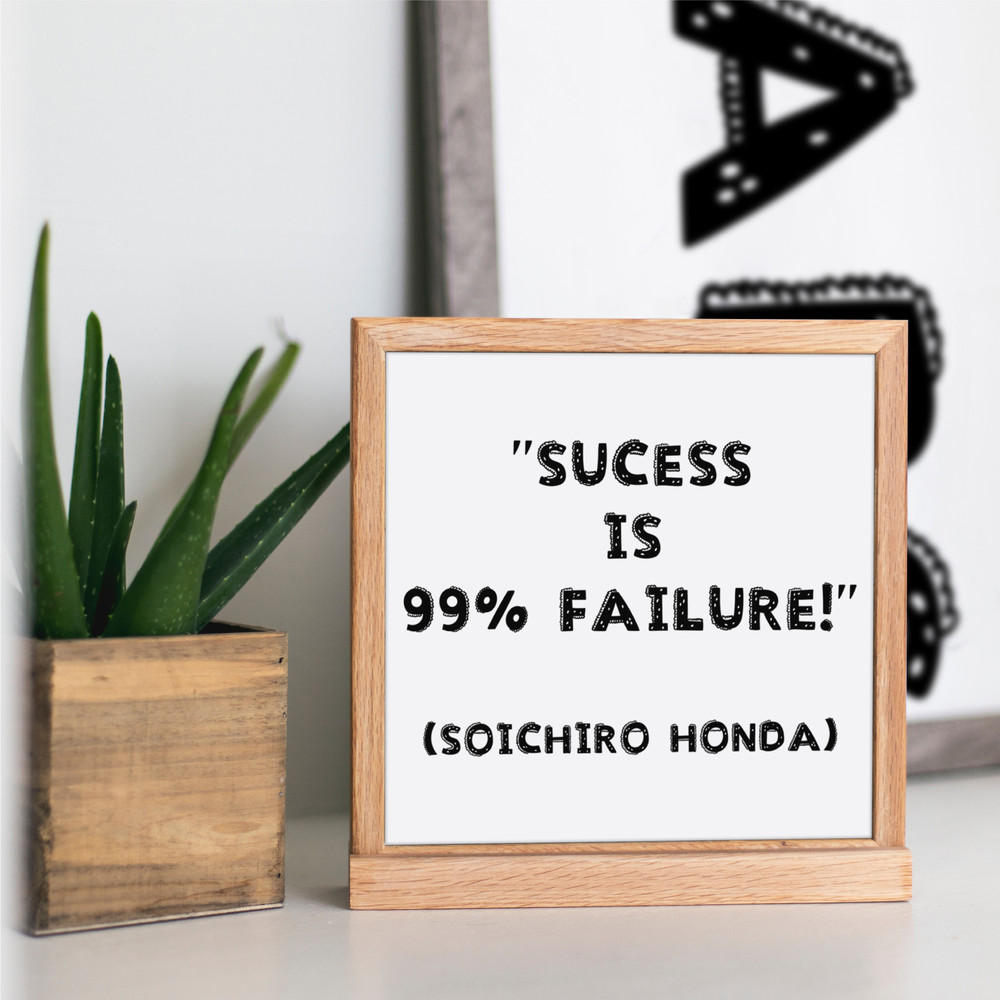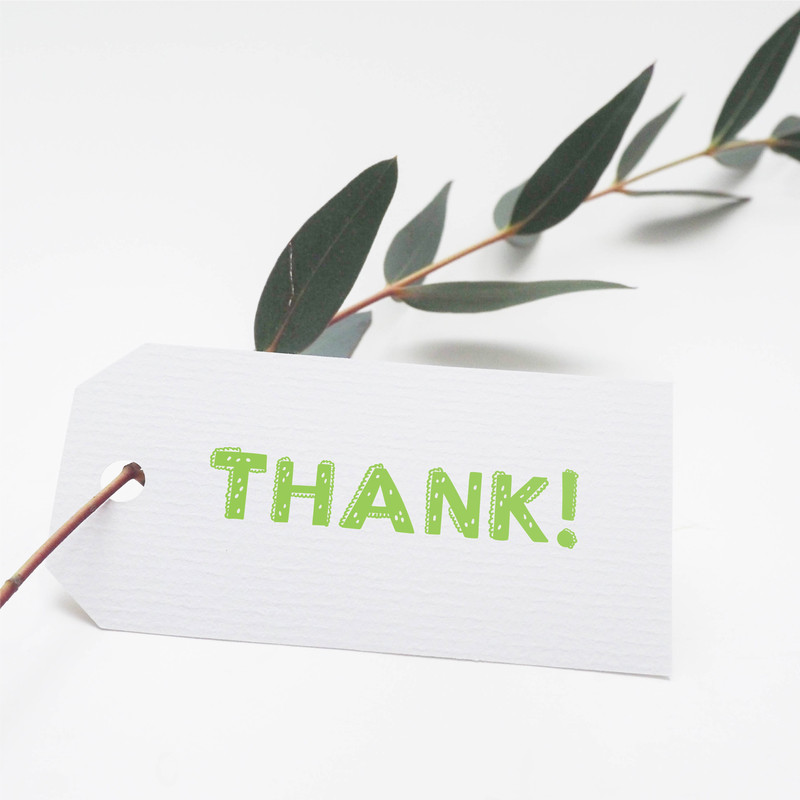
Dinosaur Cute Font
A colorful textured font is perfect for dinosaur themes. It will help your product stand out, suitable for use in headings. The Dino kid font is ideal for decorating digital and printed children's products. For example, headlines, logos, t-shirt labels, packaging, posters, cards, and much more.